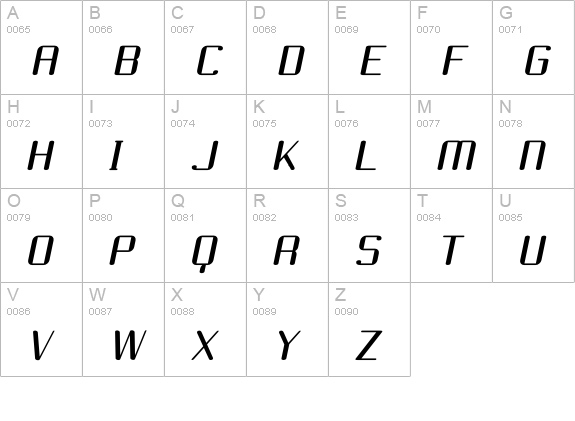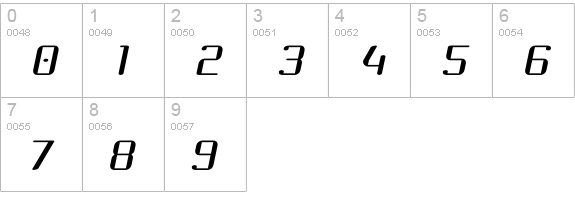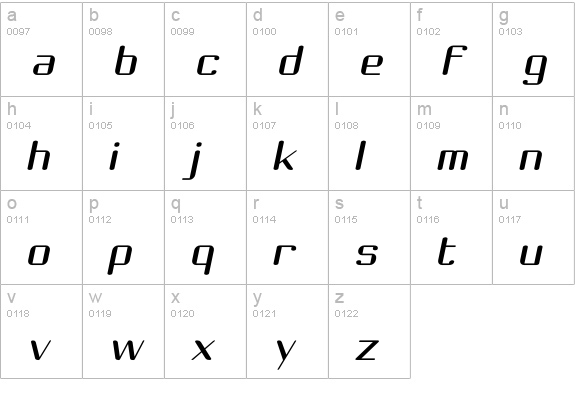
Choktoff font is a modern and stylish typeface that exudes sophistication and elegance. Its sleek lines and unique shapes make it perfect for a wide range of design projects, from branding to advertising to social media graphics. The versatility of Choktoff font allows it to be used in both digital and print applications, making it a valuable addition to any designer's toolkit. What sets Choktoff font apart is not only its striking visual appeal, but also the fact that it is completely free to download. That's right, you can access this stunning font at no cost on FontsMarket.com. Whether you're a seasoned professional or a design enthusiast looking to elevate your projects, Choktoff font is sure to impress with its modern aesthetic and timeless appeal. Download Choktoff font today and take your designs to the next level!